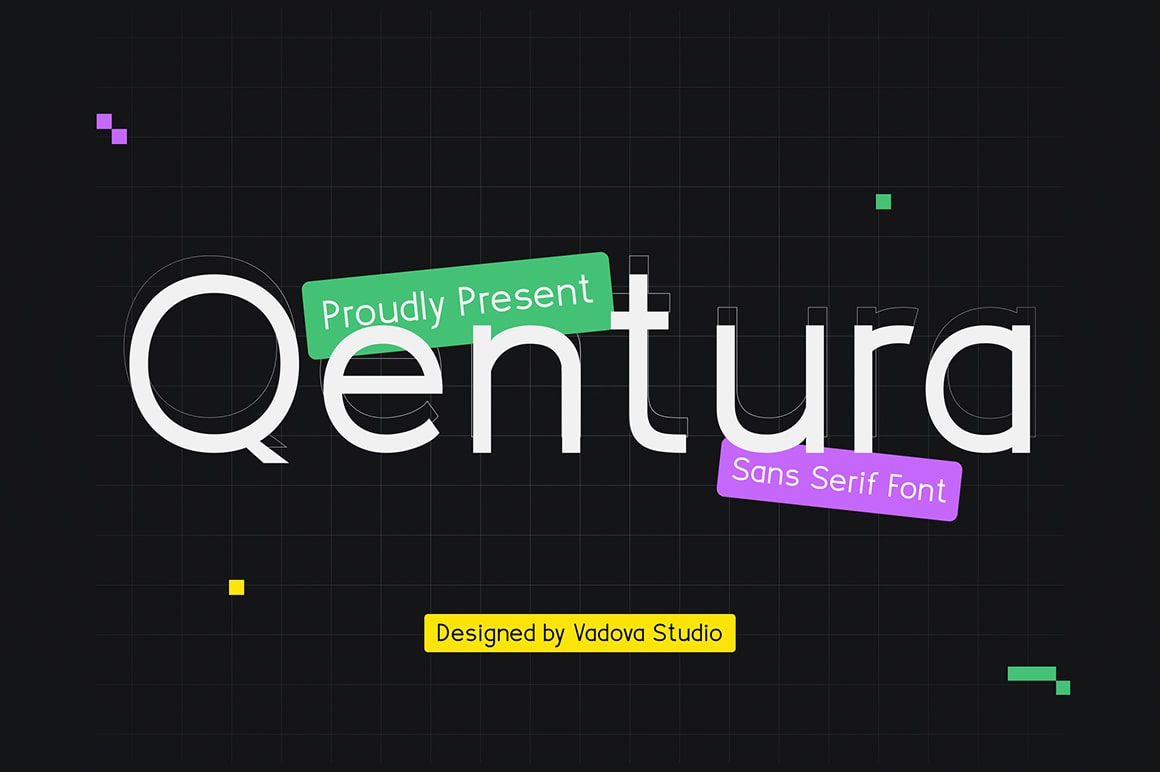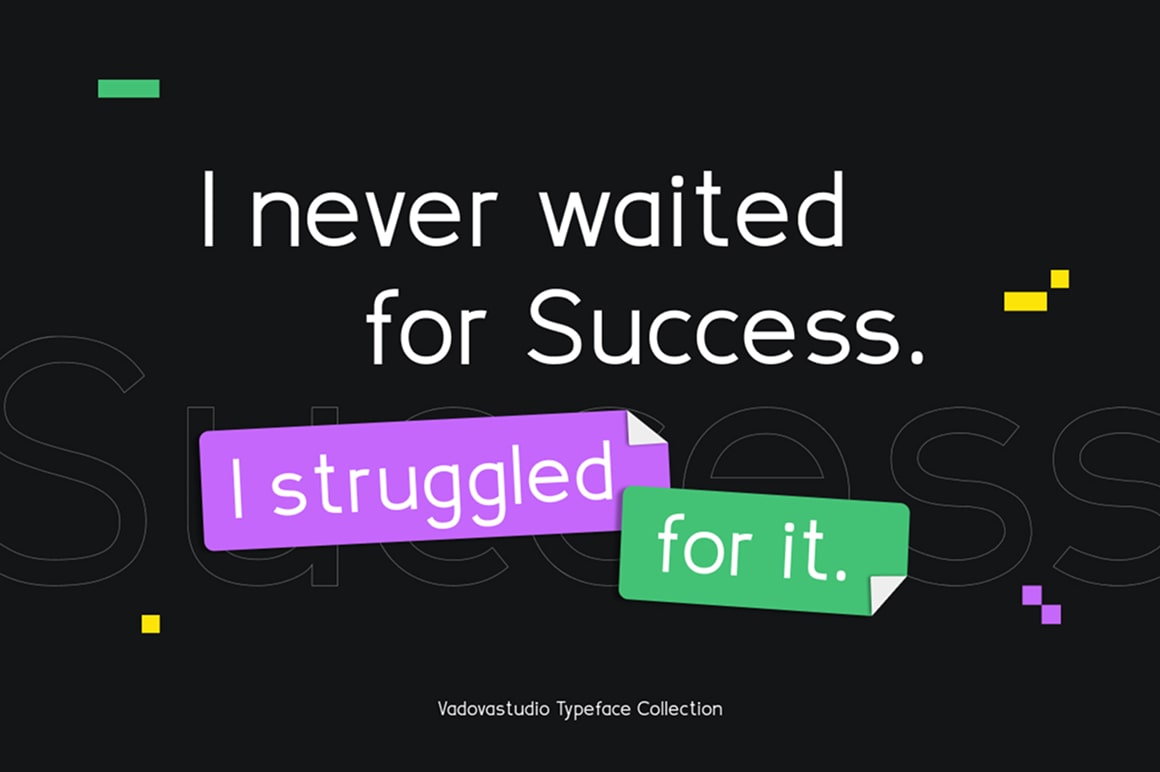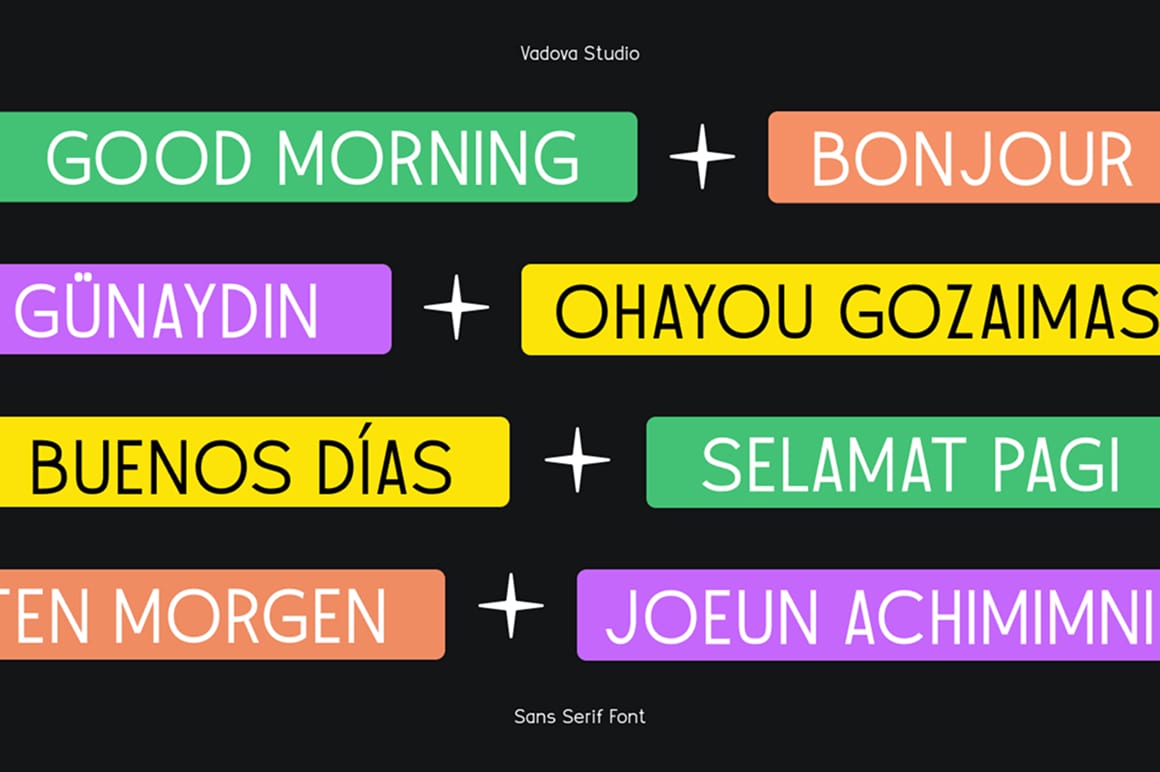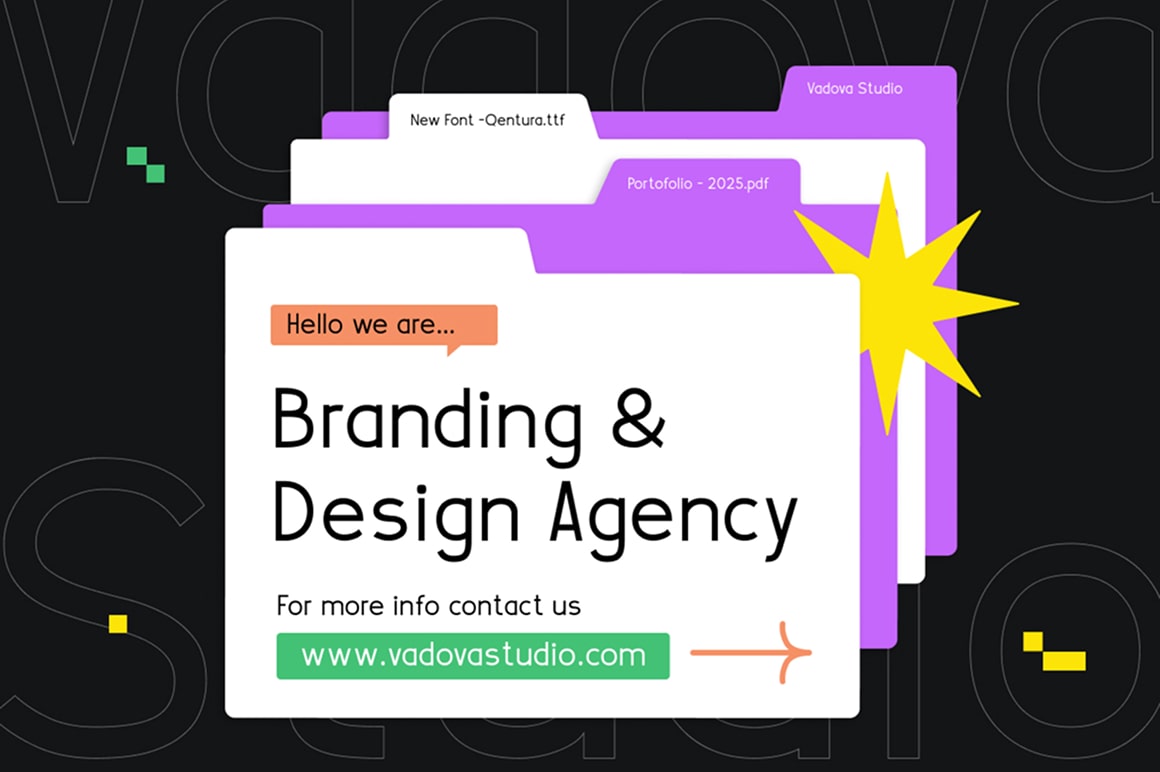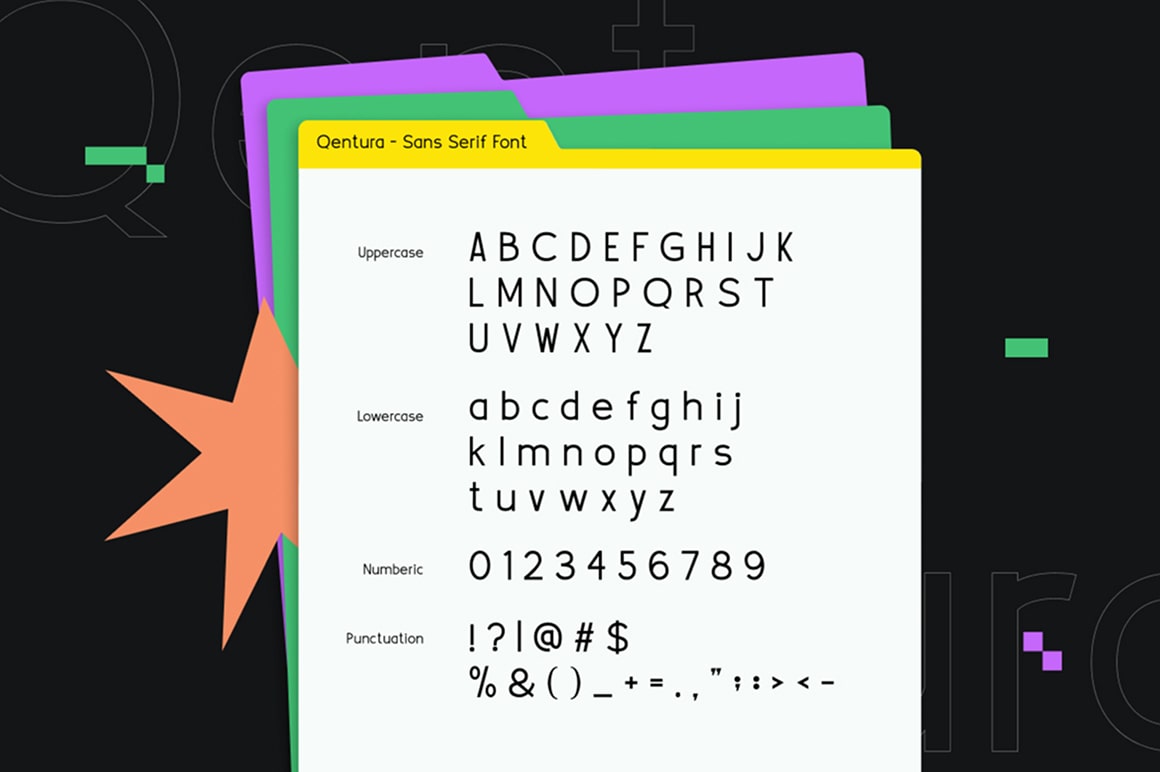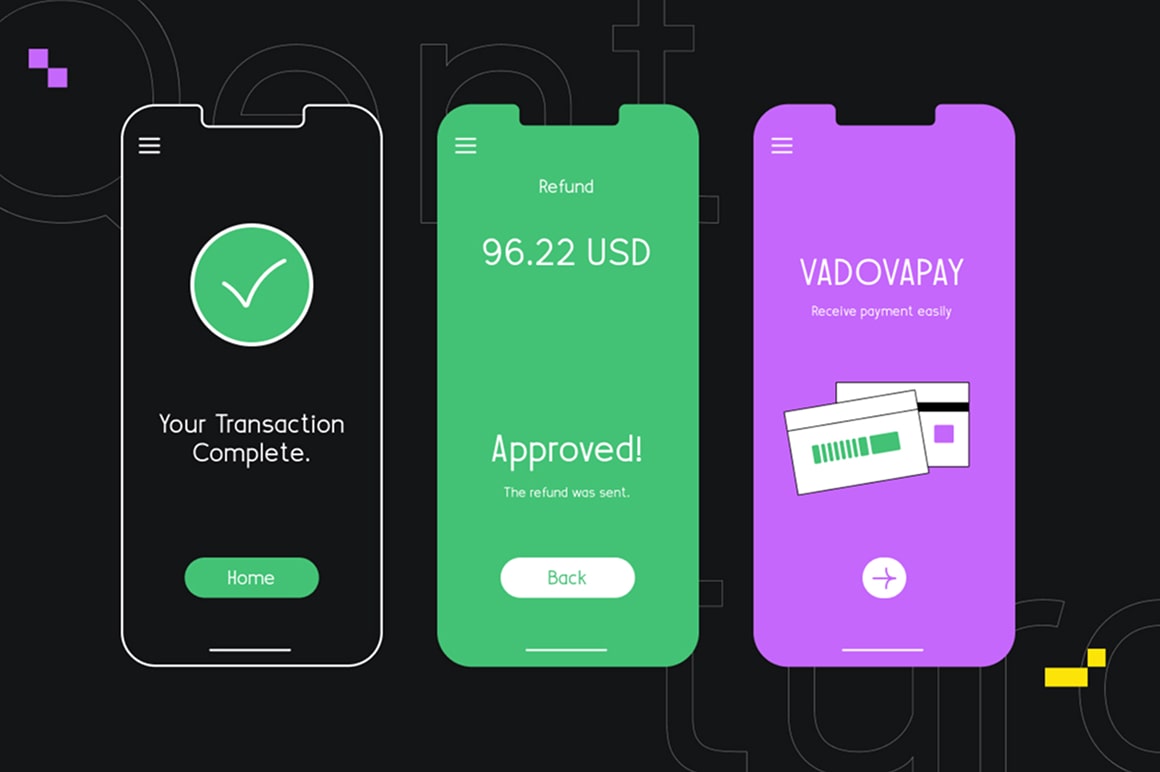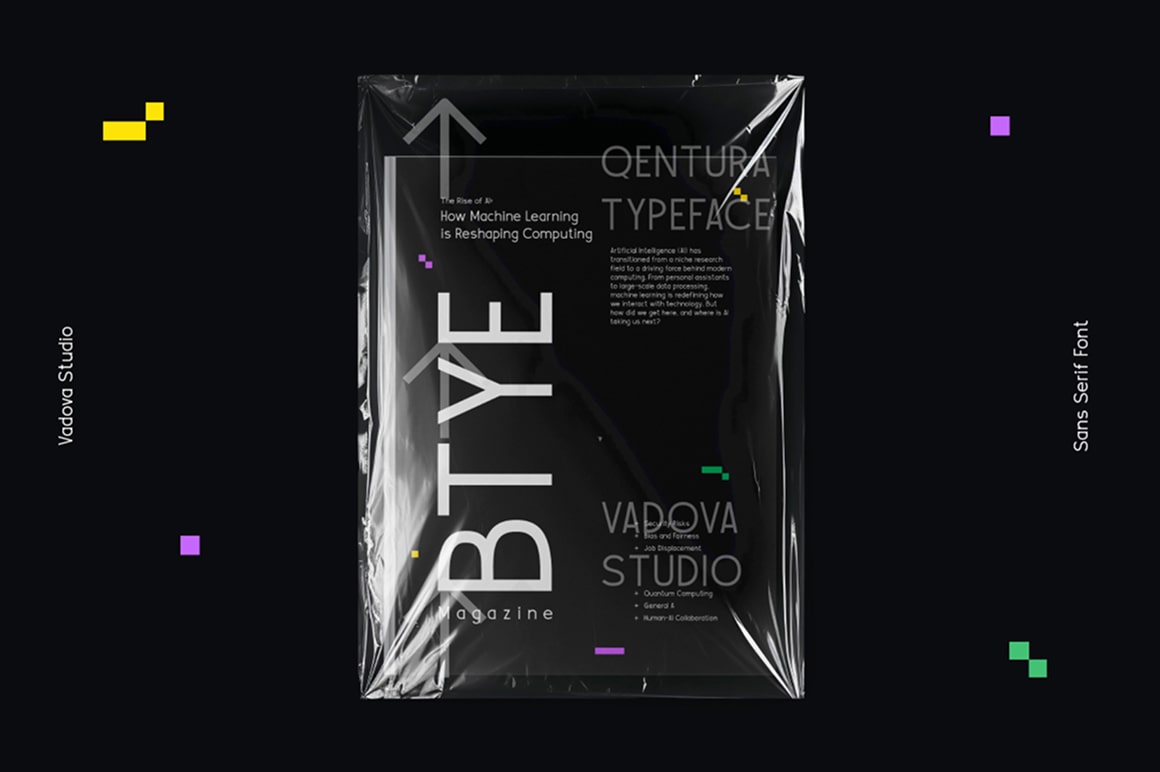
Qentura Sans Serif Font
Qentura is a sleek and modern sans-serif font designed for contemporary branding and digital projects. With its clean lines, geometric structure, and versatile style, Qentura is perfect for tech startups, UI/UX designs, fintech applications, and creative agencies. The font’s bold yet minimalistic appearance ensures readability while adding a professional and innovative touch to websites, presentations, and social media graphics. Whether used for headlines or body text, Qentura brings a futuristic and dynamic aesthetic to any design. Main Features